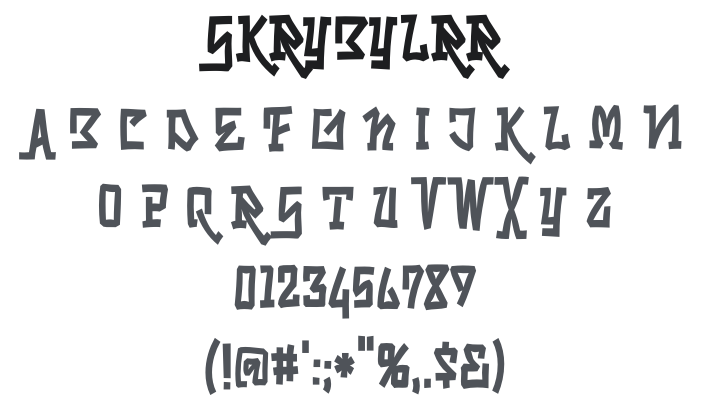
Skrybylrr Font
About Skrybylrr
Skrybylrr is a bold, angular graffiti-style display typeface with thick, geometric letterforms featuring jagged cuts and uneven edges that capture the raw energy of spray-painted wall lettering — somewhere between blockbuster graffiti and heavy metal typography. Its aggressive forward slant gives every word unstoppable momentum. Perfect for skateboard graphics, streetwear branding, hip-hop posters, heavy metal designs, and any headline demanding bold, street-level attitude.